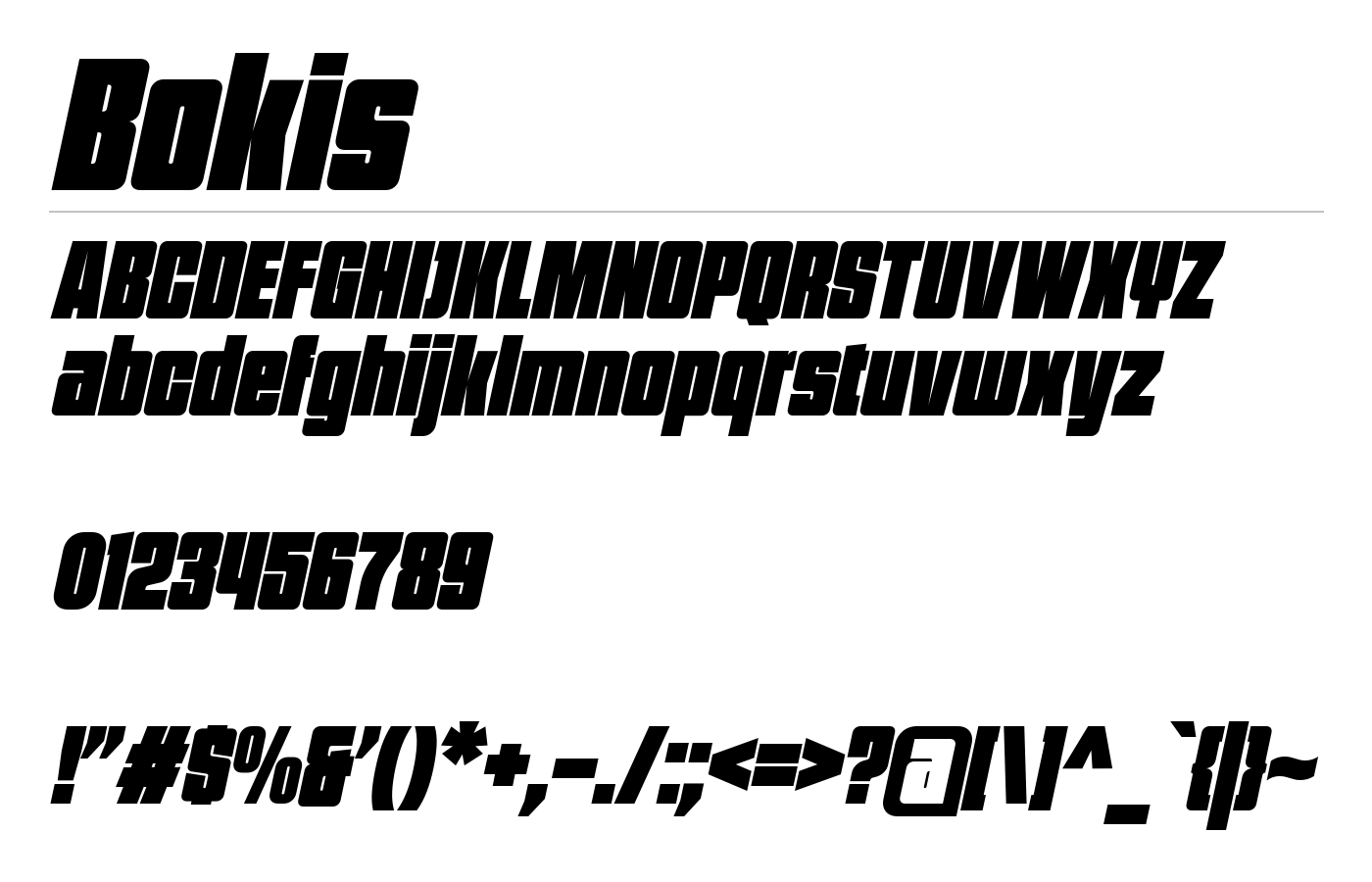
Bokis is a bold, condensed sans serif font with a striking italic slant that conveys strong motion and energy. Its thick, geometric letterforms with sharp edges create a modern, sporty vibe, making it ideal for dynamic headlines, logos, and branding that needs to stand out with confidence and impact. This font works best where a powerful, assertive style is needed to grab attention quickly.
| Font family | Bokis Font |
| Designer | Sugiyanto |